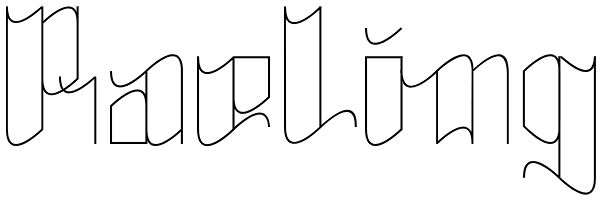
Raeling
Raeling is a display font inspired by a visit to Luxembourg, capturing shadows falling intricately from park railings appearing as broken-script lettering. A mixture of manmade / natural, traditional / new, ugly / beautiful reflecting the paradox...